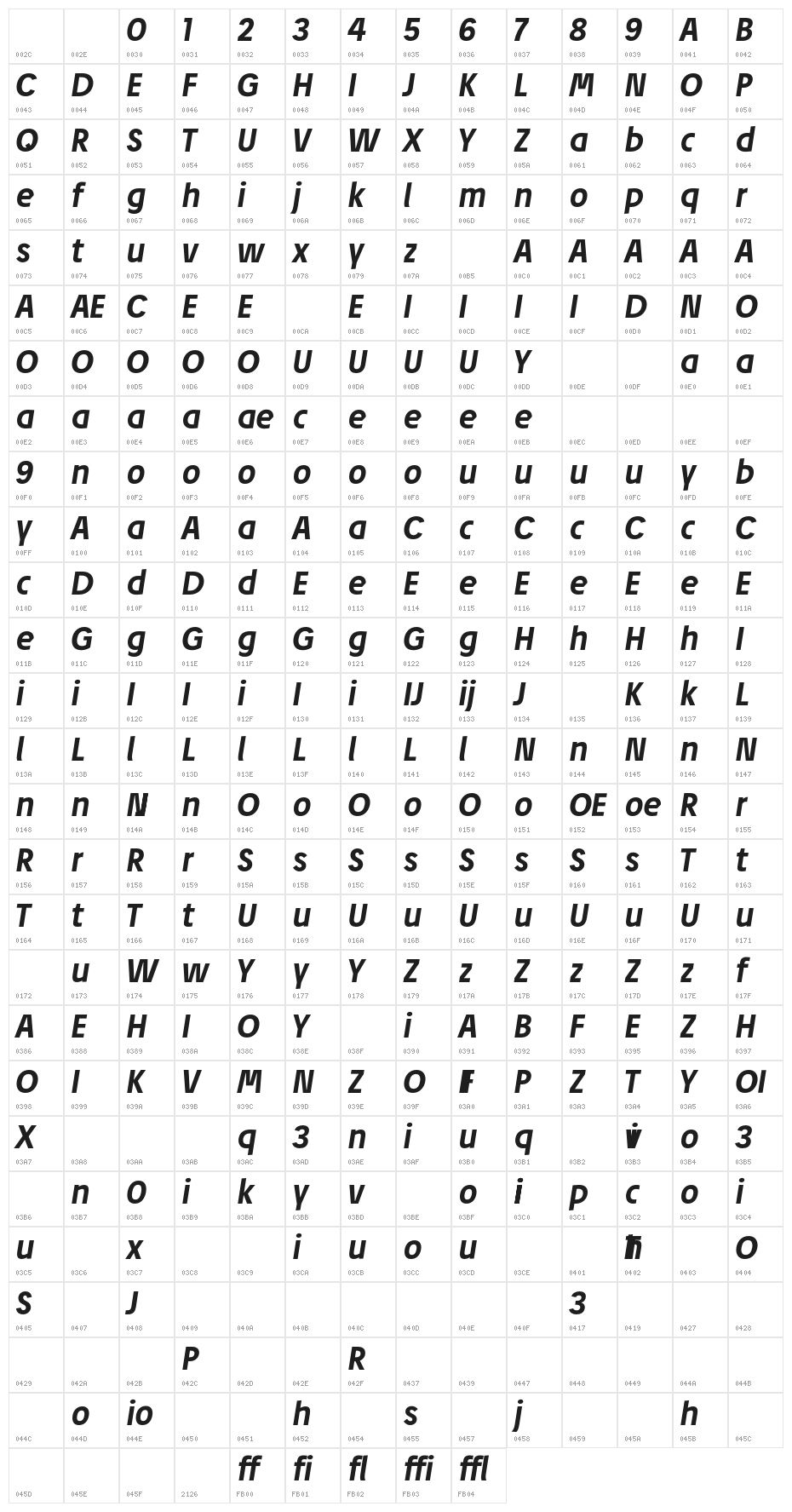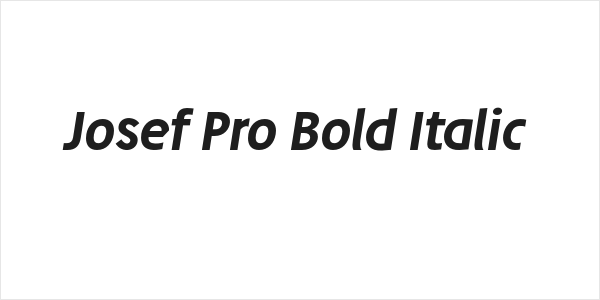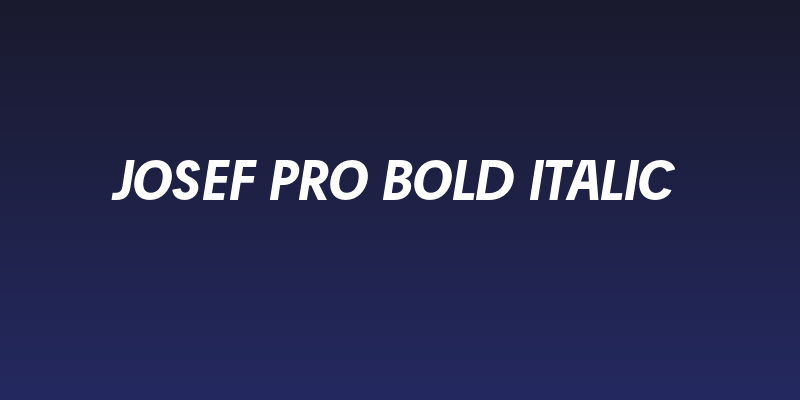
Josef Pro Bold Italic Font
Josef Pro Bold Italic Description
This typeface exudes a modern and dynamic feel with its bold and italicized style. The characters are well-defined with a slight slant, giving a sense of motion and energy. The strokes are thick, providing a strong presence on the page, while the overall design maintains a clean and professional appearance. The uppercase and lowercase letters are consistent in style, ensuring readability and uniformity. The numerals are equally bold, matching the letterforms in weight and style. This font is versatile, suitable for various applications where a bold statement is needed.